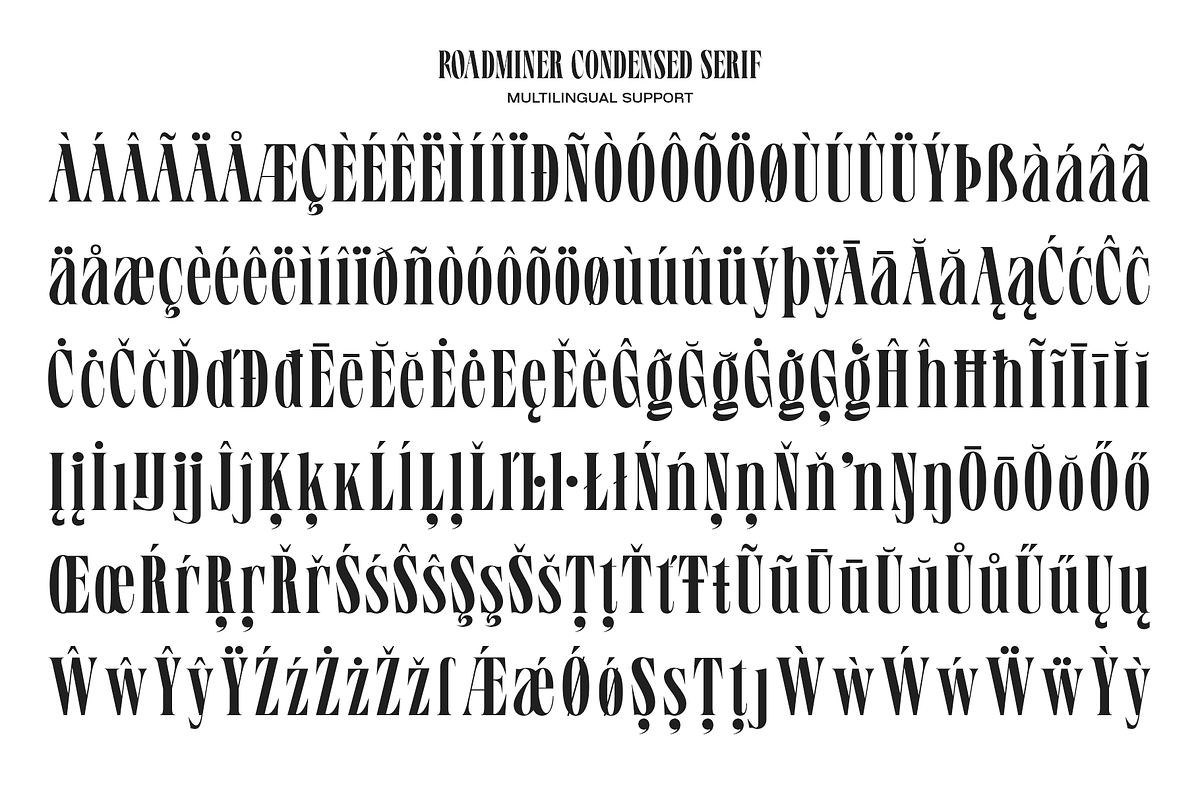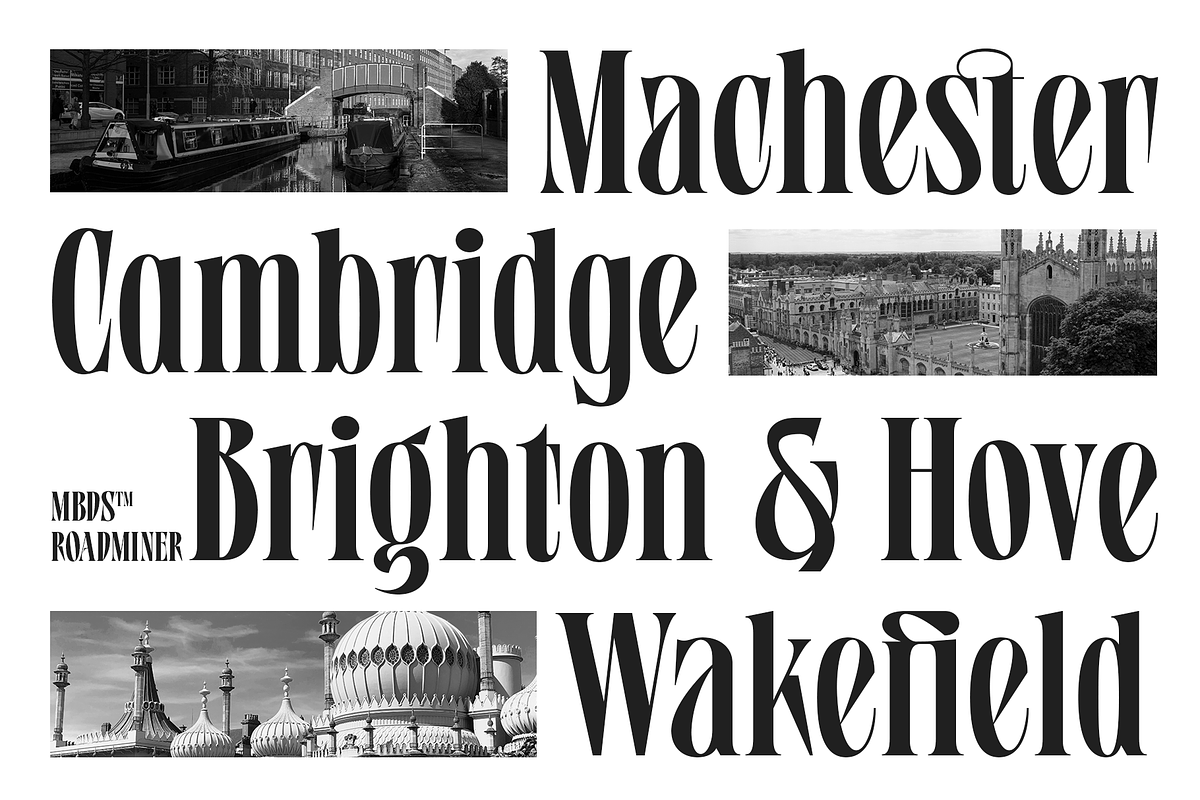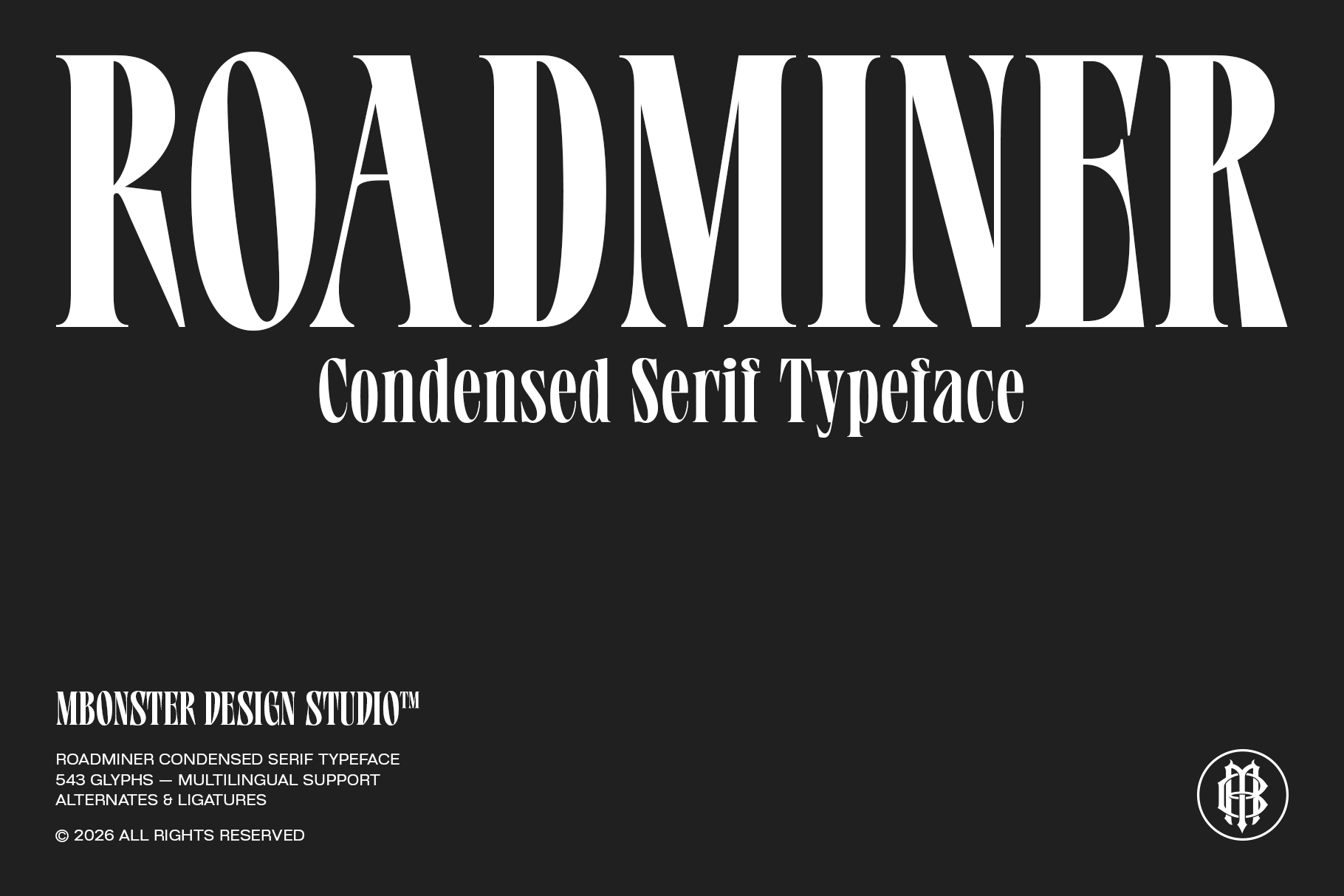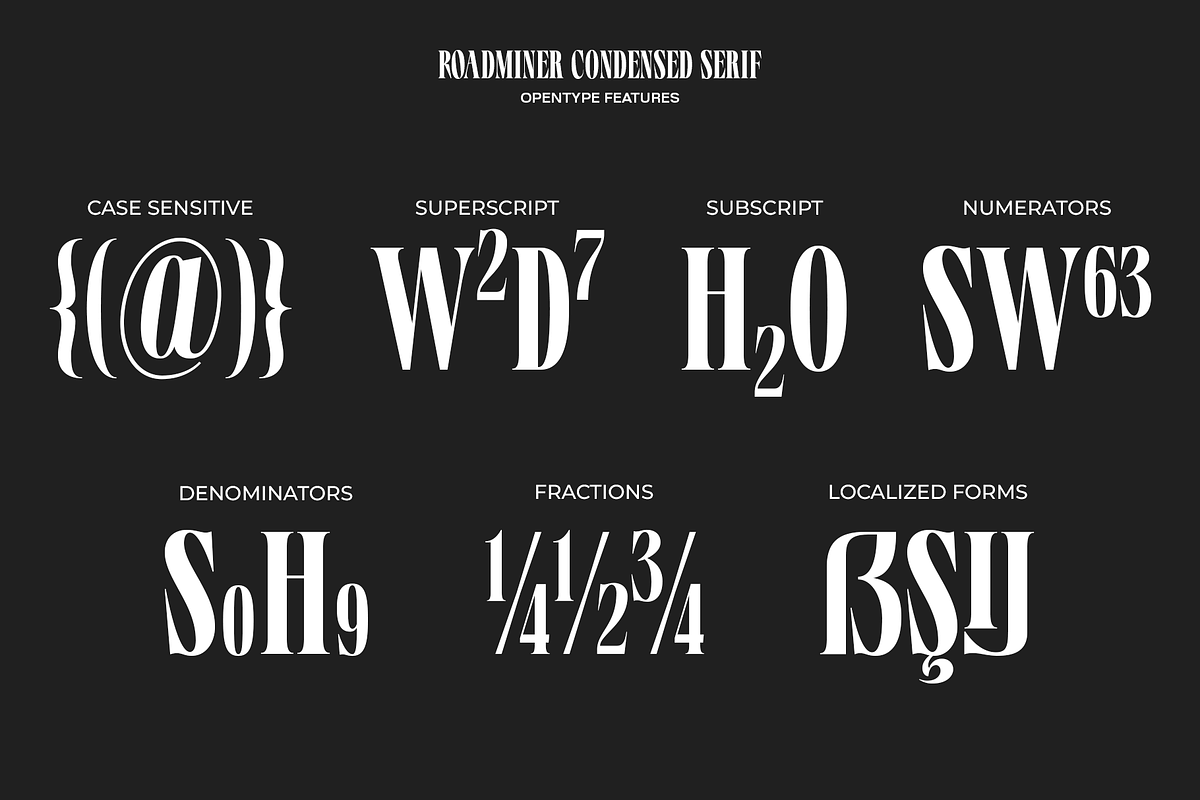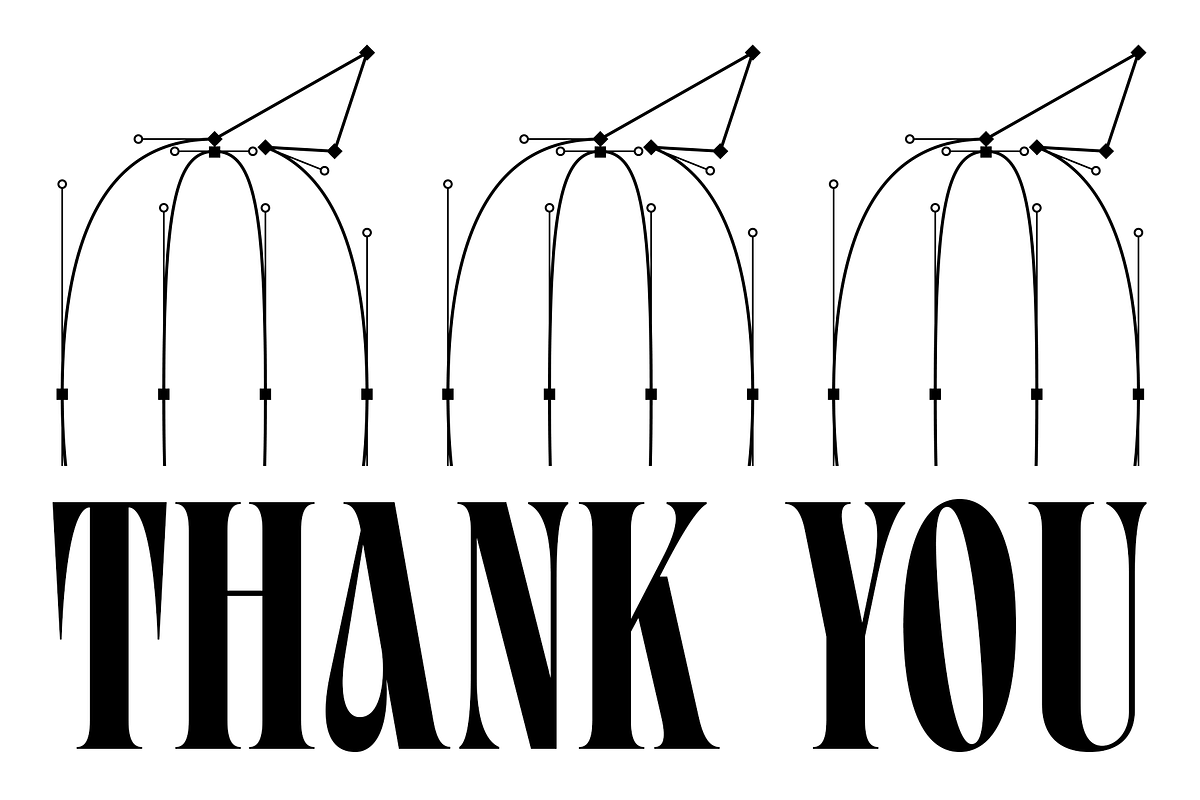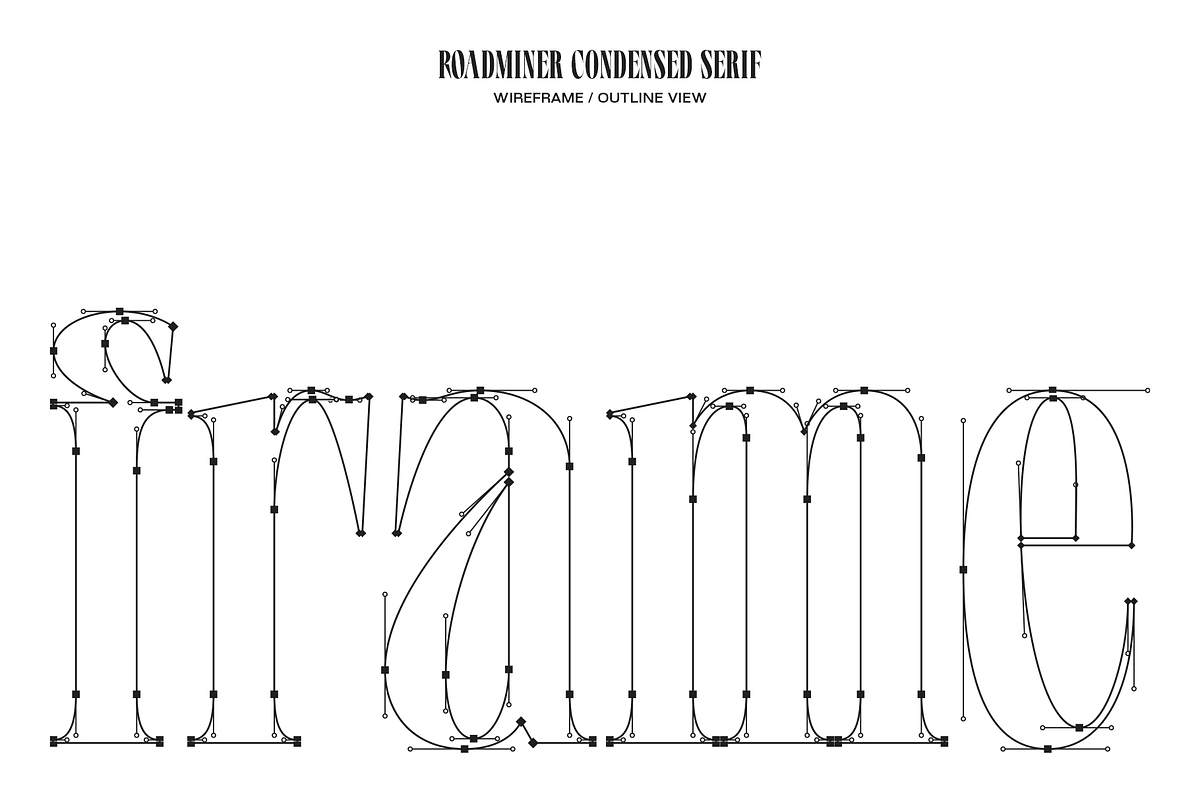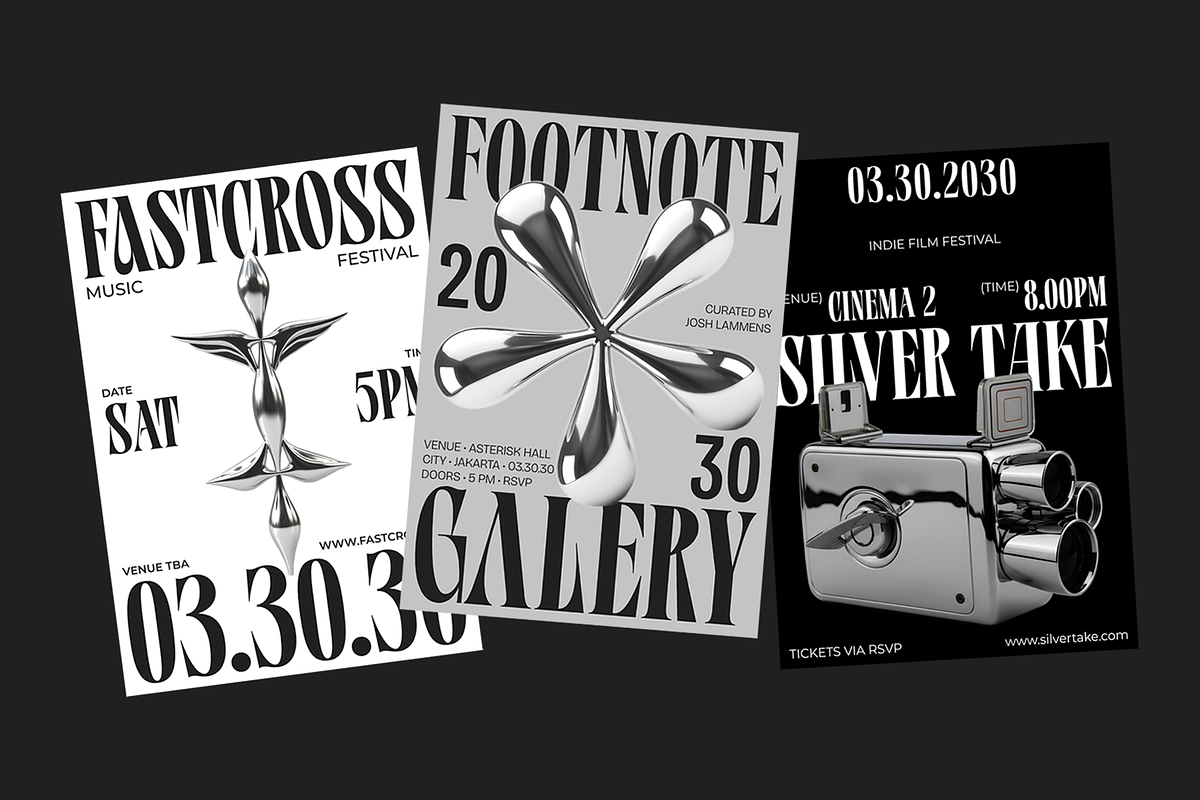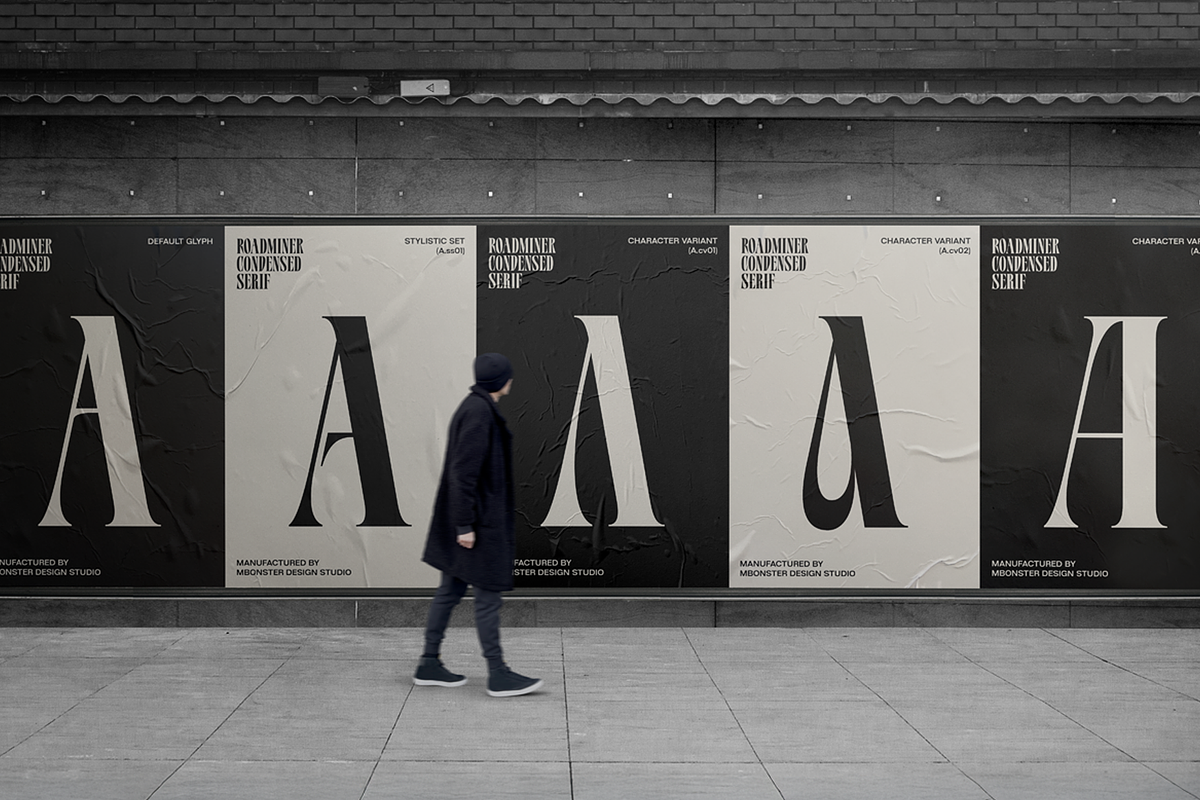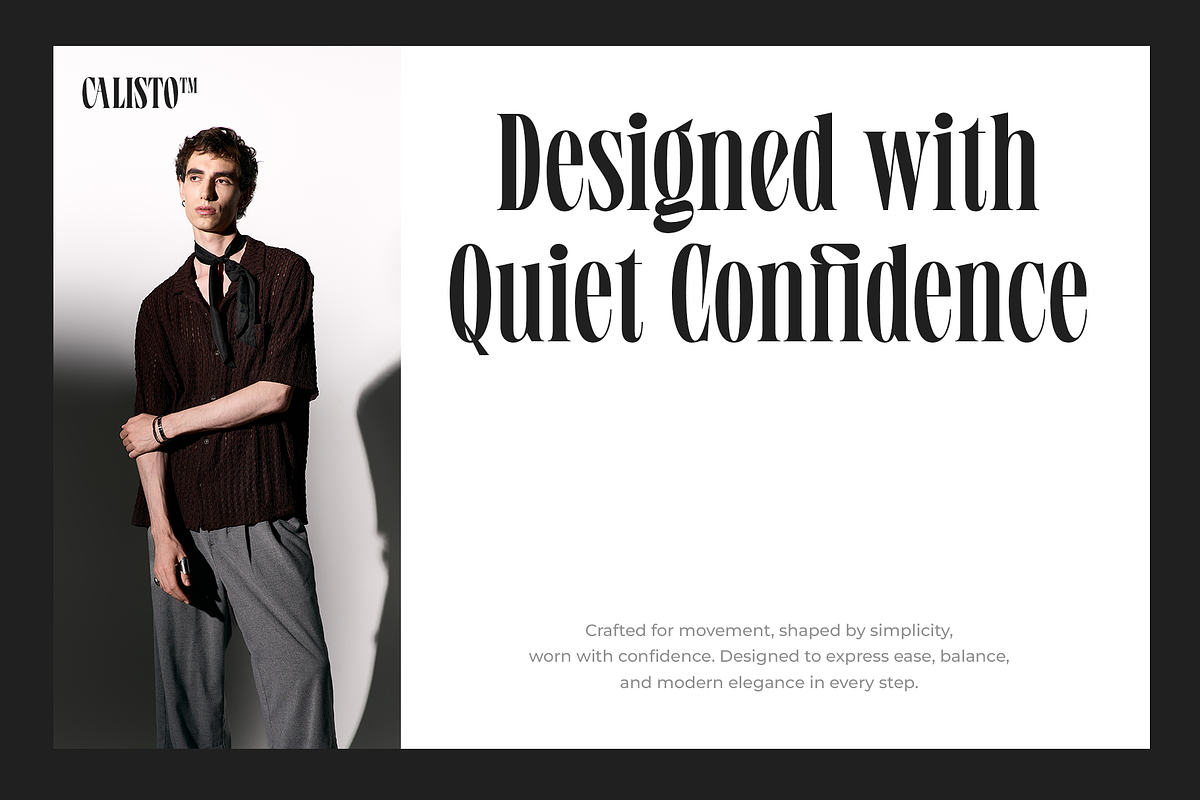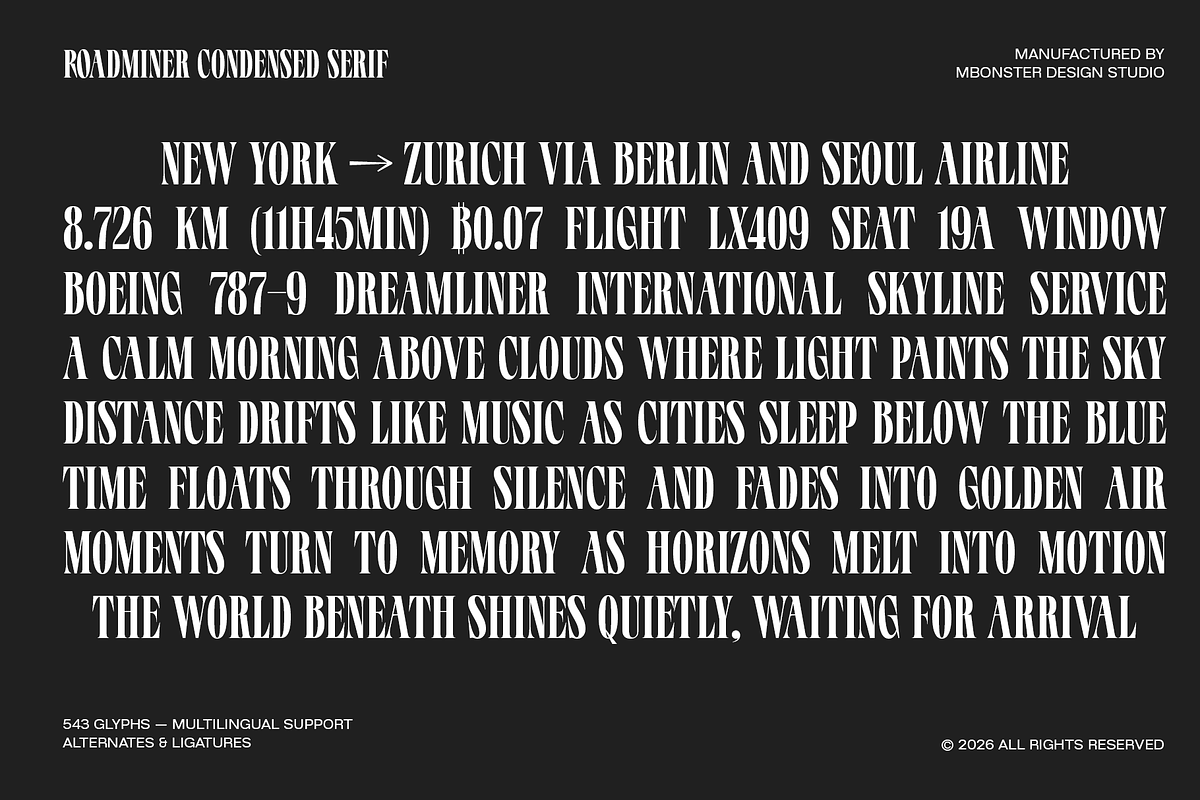
Roadminer - Condensed Serif Typeface
Roadminer is a condensed serif typeface designed for bold editorial headlines, modern branding, and high-impact visual design. With tall proportions and refined contrast, it delivers a confident, elegant presence for magazines, posters, and statement typography.